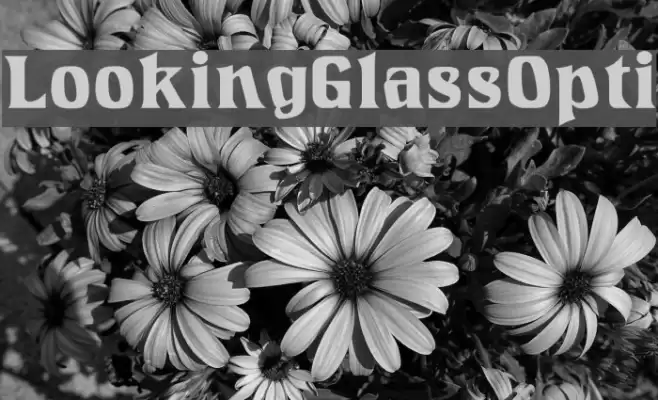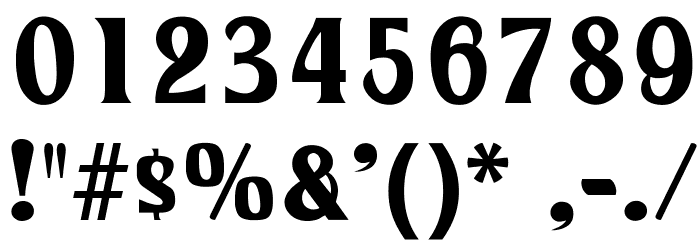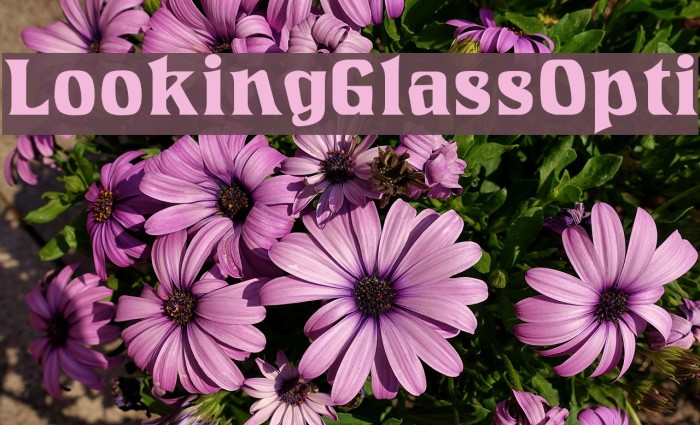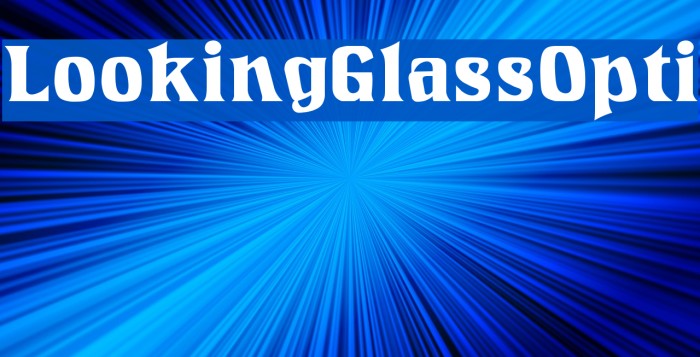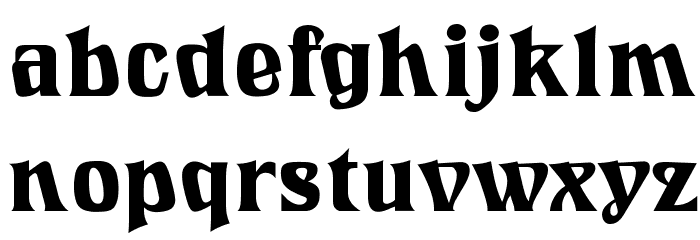
LookingGlassOpti Font
LookingGlassOpti Description
This font features a bold and striking design with a strong presence. The uppercase letters are characterized by thick, block-like serifs and a slightly condensed form, giving them a robust and authoritative look. The lowercase letters maintain the boldness with a more rounded and approachable style, creating a harmonious balance between strength and friendliness. The numerals are equally bold, ensuring they stand out clearly in any context. Special characters are designed with the same boldness, ensuring consistency across all glyphs. This font is ideal for making a statement, with its high contrast and distinctive style.
A bold, serif font with strong, block-like serifs and a slightly condensed form from Uncategorized fonts.
- Proposed Projects: Ideal for headlines, posters, branding, and any project requiring a strong, impactful typeface.